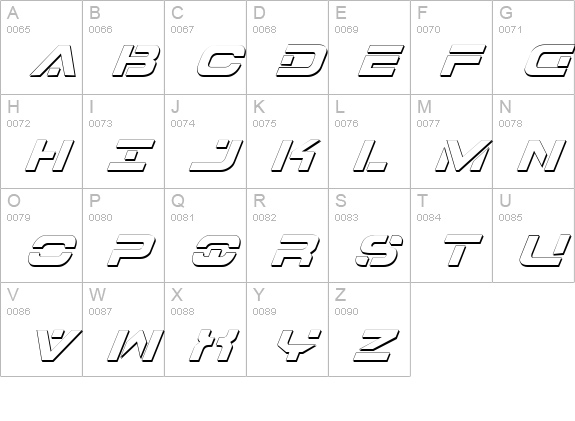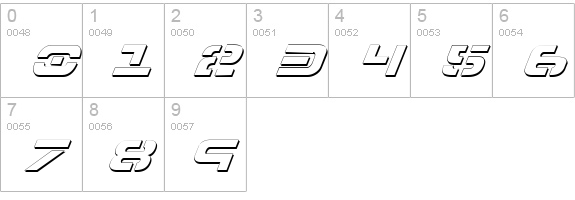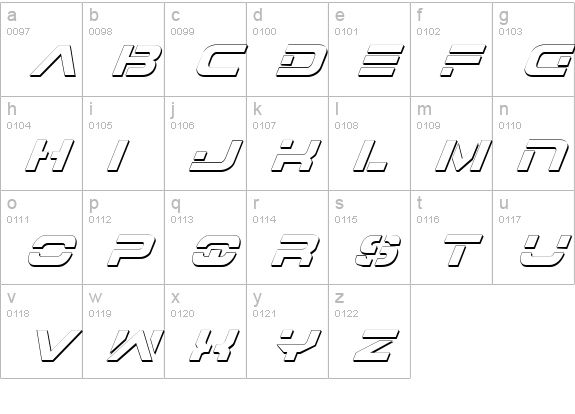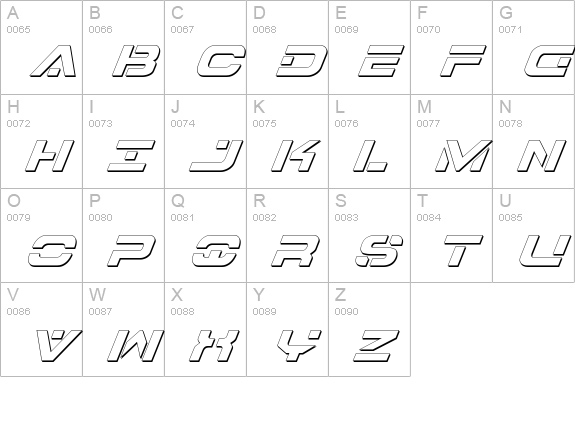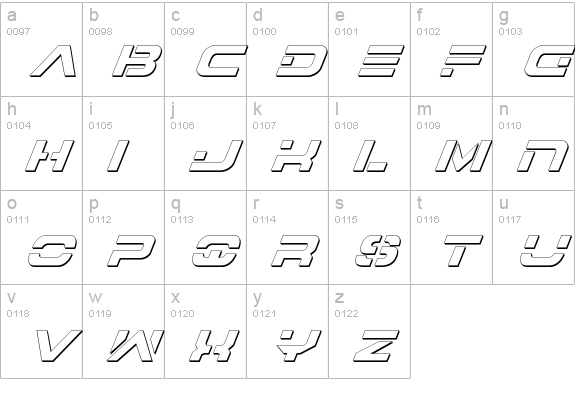
7th Service Outline Italic is a distinctive, italic variant in the 7th typeface family \xE2\x80\x94 well suited to design and typography projects.
Introducing the 7th Service Outline Italic font, a sleek and modern typeface designed to make your projects stand out. With its unique and stylish italic design, this font is perfect for adding a touch of sophistication to any design. The 7th Service Outline Italic font is versatile and can be used for a wide range of projects, from logos to branding to social media graphics. This font is freely available to download at FontsMarket.com, making it easily accessible for all designers and creatives. Whether you're working on a personal project or a client's design, the 7th Service Outline Italic font is sure to impress with its clean lines and contemporary aesthetic. Elevate your designs with this stunning font today!